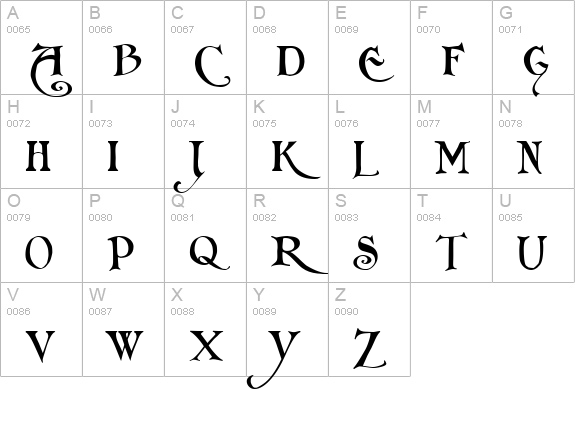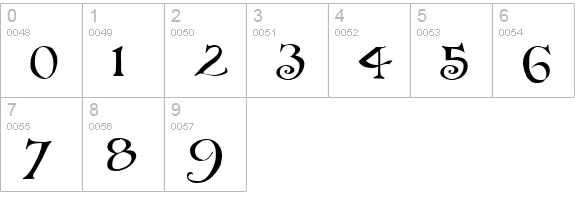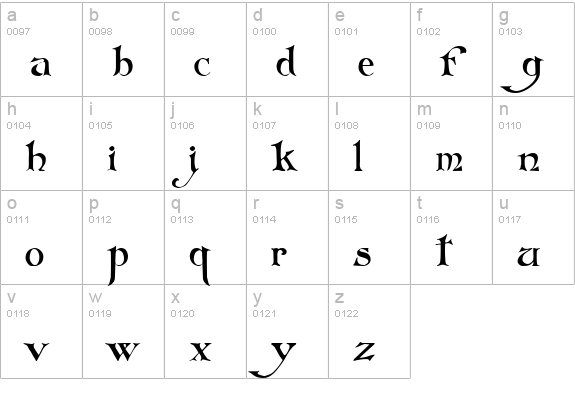
Arlekino Font Details
Arlekino font is a whimsical and playful typeface that exudes charm and creativity. With its unique design and quirky flair, this font is perfect for adding a touch of fun to your projects. Whether you're working on a poster, logo, or branding design, Arlekino font will surely make your creations stand out. What's even better is that Arlekino font is completely free to download at FontsMarket.com. This means you can easily access this delightful font and use it in your personal and commercial projects without any cost. So why wait? Download Arlekino font now and let your creativity shine with this exciting and expressive typeface.